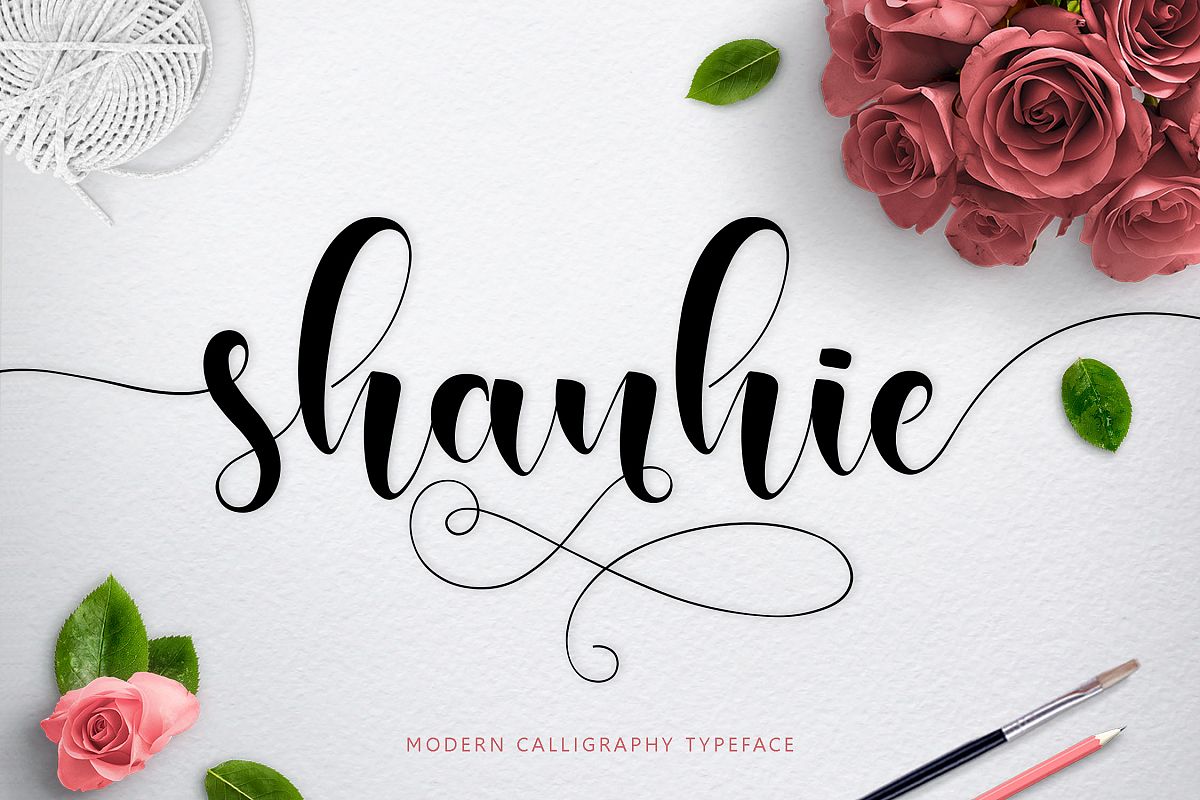
Shanhie
Introducing
Shanhie Script
Shanhie Script a new fresh & modern script with a handmade calligraphy style, decorative characters and a dancing baseline! So beautiful on invitation like greeting cards, branding materials, business cards, quotes, posters, and more !
Shanhie Script come with 490+ glyphs. The alternative characters were divided into several Open Type features such as Swash, Stylistic Sets, Stylistic Alternates, Contextual Alternates. The Open Type features can be accessed by using Open Type savvy programs such as Adobe Illustrator, Adobe InDesign, Adobe Photoshop Corel Draw X version, And Microsoft Word. And this Font has given PUA unicode (specially coded fonts). so that all the alternate characters can easily be accessed in full by a craftsman or designer.
Shanhie Script :